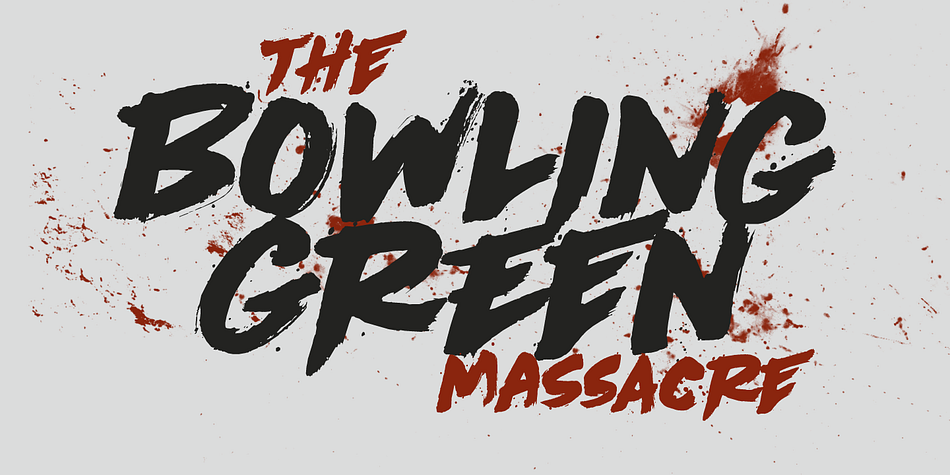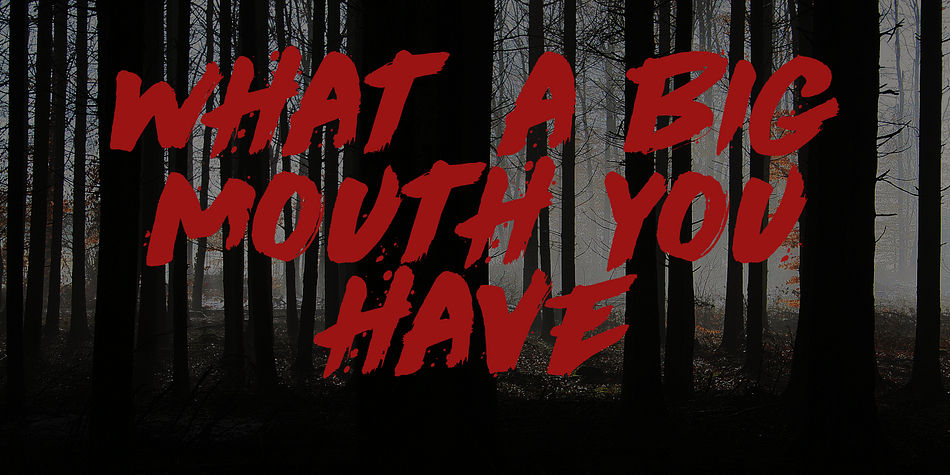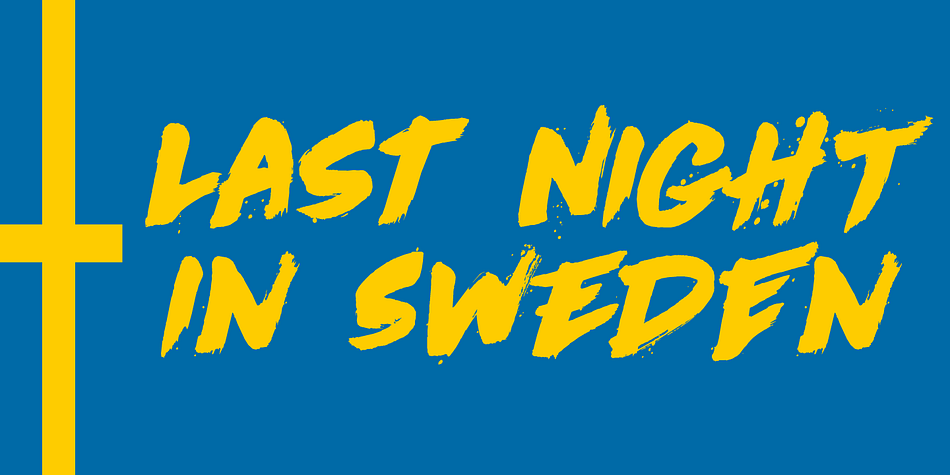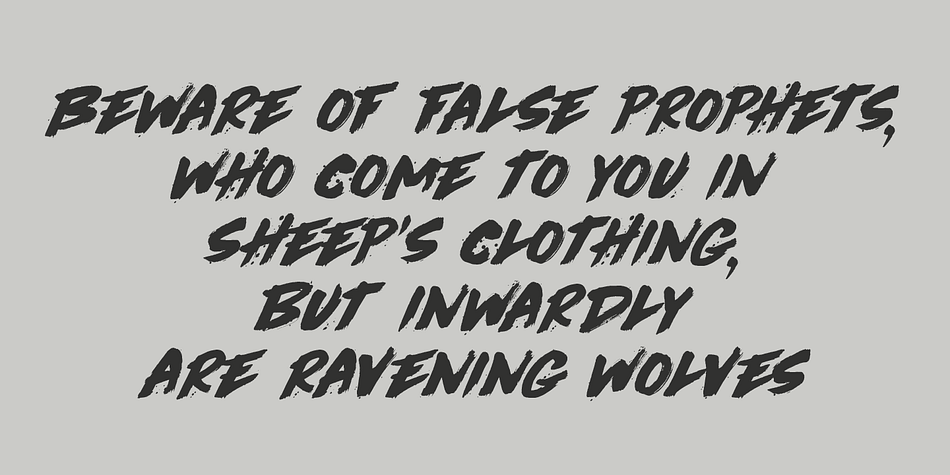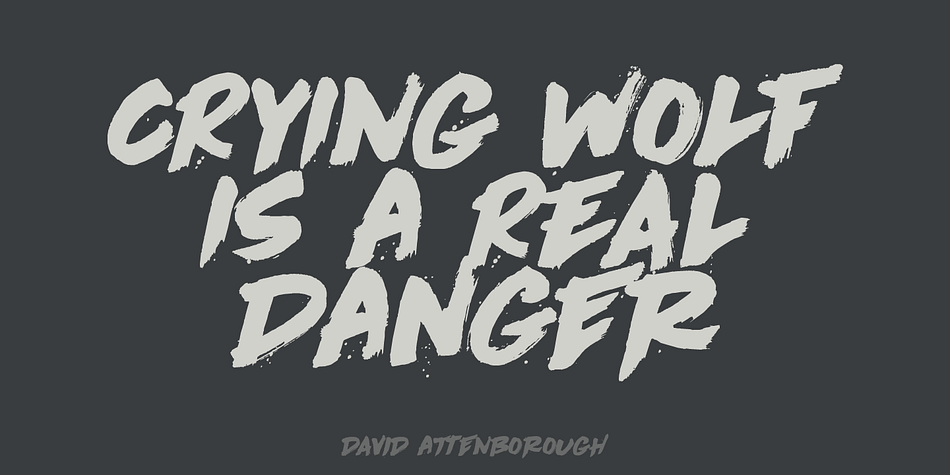
Cry Wolf is a grunge and brush display font family. This typeface has two styles and was published by Hanoded.
When I was a kid, I loved the story of The Boy Who Cried Wolf. I thought it was pretty stupid of the boy to trick the villagers into believing wolves are attacking his flock of sheep. But I also thought it was a bit sad that the sheep are eaten by a wolf in the end. I didn’t really feel sorry for the boy (he really was stupid), nor the wolf (he just does what he is supposed to do in life), but I did feel sorry for those poor sheep. I guess this is what disinformation leads to in the end.
Cry Wolf is a bit of a scary font: it was made with a really old and battered brush, using Chinese ink and some quality French paper. It has a slight tilt to the right and I added some inky splatter for dramatic effect. Use Cry Wolf for your book covers, product packaging and headlines; use if to spice up you invitations and your halloween posters.
Comes in a slightly tilted Regular style and an outright Italic style.